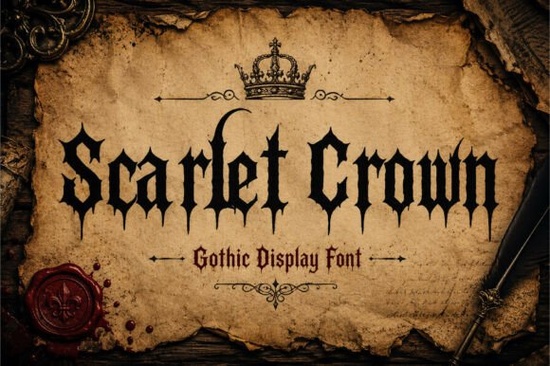
If you're working on a project that calls for bold, dramatic typography think band logos, gothic posters, or dark-themed apparel the Scarlet Crown Font might be exactly what you need. This blackletter display font blends medieval calligraphy with modern edge, giving your designs a commanding presence without sacrificing legibility at large sizes.
What sets Scarlet Crown apart is how it balances tradition and attitude. It draws from old-English letterforms but sharpens them with aggressive strokes and ornamental flourishes that feel right at home in heavy metal aesthetics, horror branding, or streetwear graphics. Whether you’re designing merch for a music act or creating event posters for a themed night, this font adds unmistakable character.
What kinds of projects work best with Scarlet Crown?
This font shines in visual contexts where impact matters more than body text readability. Here are some natural fits:
- Music branding – Album covers, band logos, tour posters
- Tattoo-inspired artwork – Flash sheets, shop signage, social media graphics
- Apparel design – T-shirts, hoodies, patches with gothic or punk themes
- Gaming assets – Titles, UI elements, promotional art for dark fantasy games
- Event promotion – Halloween parties, goth nights, underground shows
Because of its detailed serifs and dense structure, Scarlet Crown isn’t meant for small print or long paragraphs. But as a display font especially at larger sizes it delivers strong visual identity with minimal effort.
How does it compare to other blackletter fonts?
Many traditional blackletter fonts lean heavily into historical accuracy, which can feel stiff or overly ornate for modern use. Scarlet Crown keeps those classic influences but trims the excess, offering cleaner lines and more consistent spacing. The result? A font that feels both authentic and contemporary.
You’ll notice subtle details like tapered terminals and angular joins that echo hand-drawn calligraphy, yet the overall form remains bold enough to stand out on merchandise or digital banners. If you’ve tried other gothic fonts and found them too delicate or hard to pair, Scarlet Crown’s assertive weight might solve that problem.
Can beginners use this font effectively?
Absolutely. While blackletter fonts can intimidate newcomers due to their complexity, Scarlet Crown was designed with practicality in mind. Its letterforms are distinct but not overly intricate, so even if you’re new to typography, you can achieve professional-looking results by following a few simple guidelines:
- Use it big – This font works best at headline sizes (36pt and up).
- Pair it wisely – Combine with clean, neutral sans-serifs (like Helvetica or Montserrat) to avoid visual clutter.
- Limit usage – One or two words often have more impact than full sentences.
- Check spacing – Some letters may need manual kerning for tight compositions.
Print-on-demand sellers, in particular, will appreciate how well it scales across products from tote bags to vinyl decals without losing definition.
With its mix of historical depth and modern grit, Scarlet Crown gives your work a voice that’s both distinctive and grounded. If your creative direction leans toward the bold, the mysterious, or the unapologetically dramatic, this font could become a go-to in your toolkit.